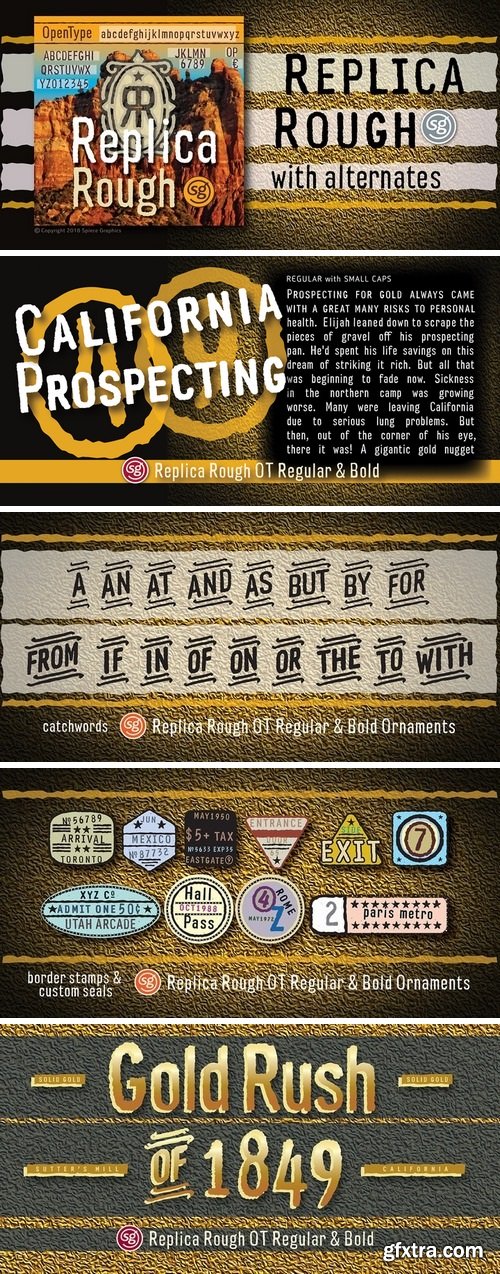
Replica Rough SG™ Font Family - 2 Fonts
Here’s an edge-tattered, slightly distorted typeface that was developed from hand stamping using ink. You’ll find it ideal for both display and text situations where legibility is a big concern. This version holds up in very small sizes. Replica Rough SG Regular and Bold are now available in the OpenType format. This OpenType version includes stylistic alternates, discretionary ligatures, small caps, petite caps, ornaments and oldstye figures. Advanced features currently work in Adobe Creative Suite InDesign, Creative Suite Illustrator, and Quark XPress. Check for OpenType advanced feature support in other applications as it gradually becomes available with upgrades.